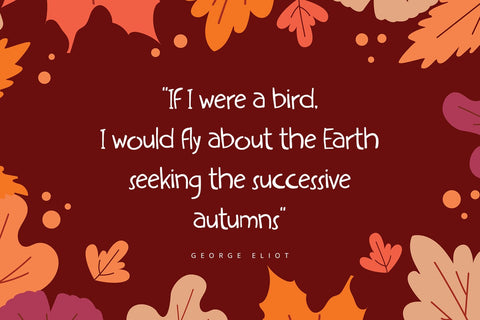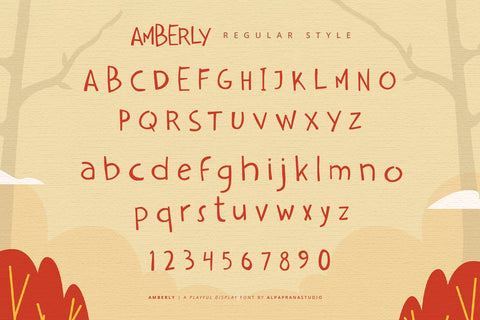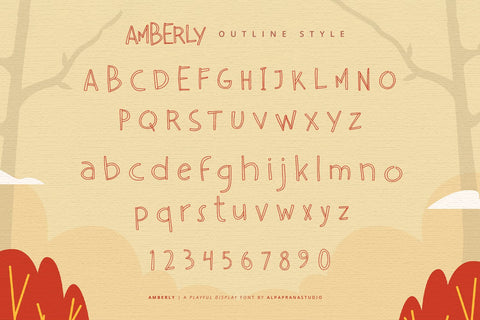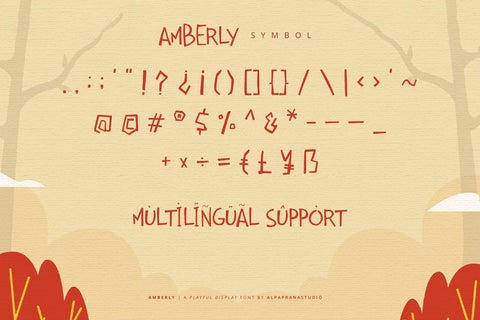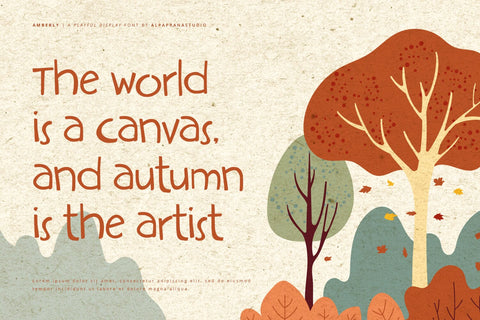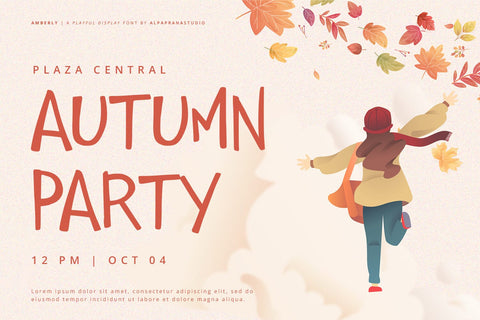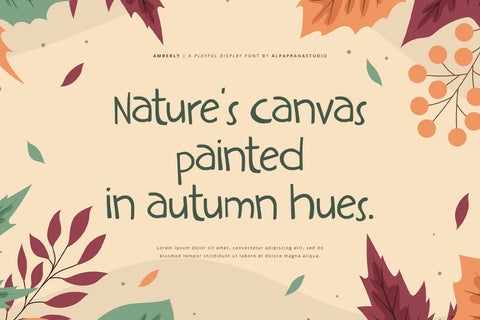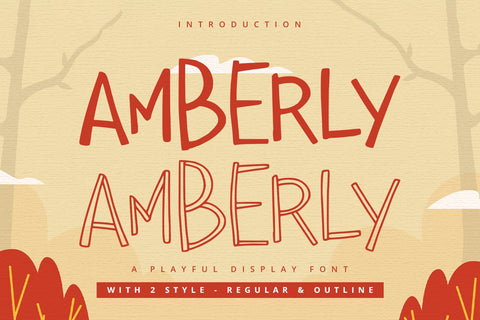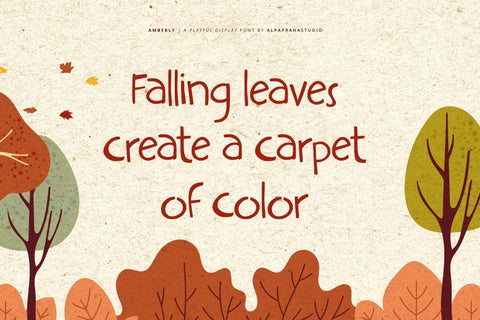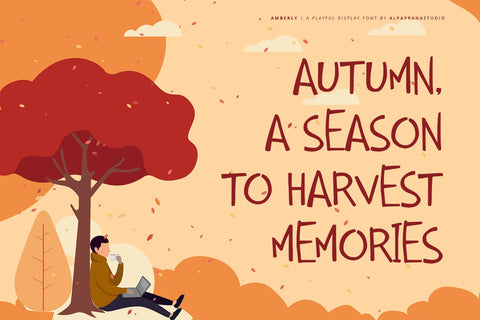
Amberly - Display Font
Amberly is a playful display font with cute and modern feels. It will be perfectly used for Branding, Logo Design, Lettering, Logotype, Clothing, Poster, magazine, packaging, posters, shopping bags, t-shirts, book covers, photography, special events and other design project.